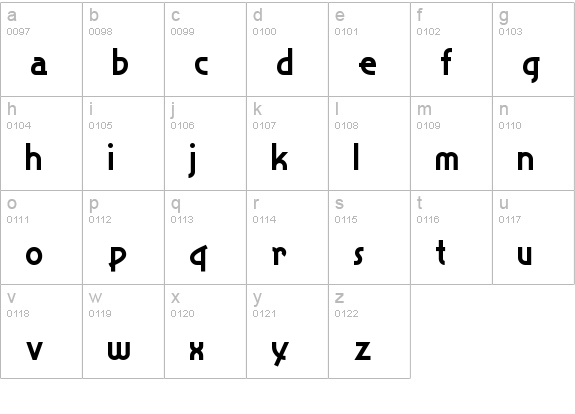
Snappy Service NF Font Details
Snappy Service NF font is a modern and stylish typeface that exudes elegance and professionalism. With its clean lines and bold strokes, this font is perfect for creating eye-catching designs that demand attention. Its unique blend of classic and contemporary elements makes it versatile for a wide range of projects. Best of all, Snappy Service NF font is completely free for personal and commercial use. You can easily download this font at FontsMarket.com and start incorporating it into your designs today. Don't miss out on the opportunity to add this stunning font to your collection and elevate your projects with its sophistication and charm.